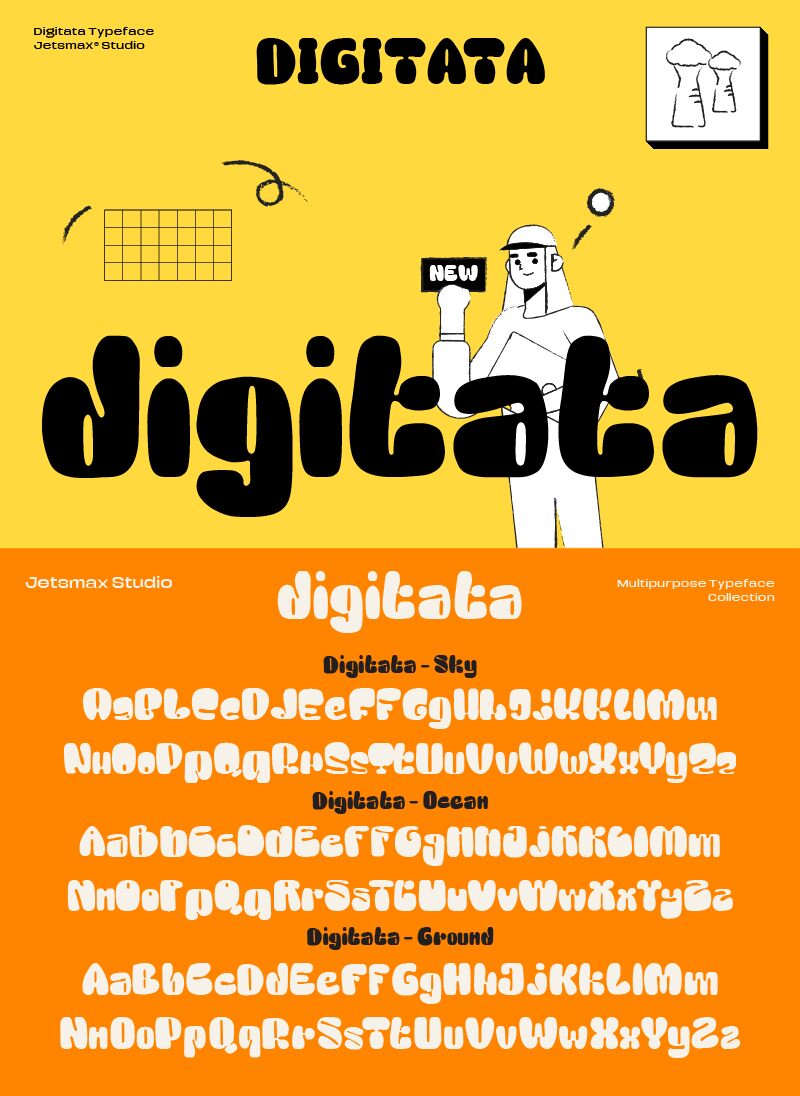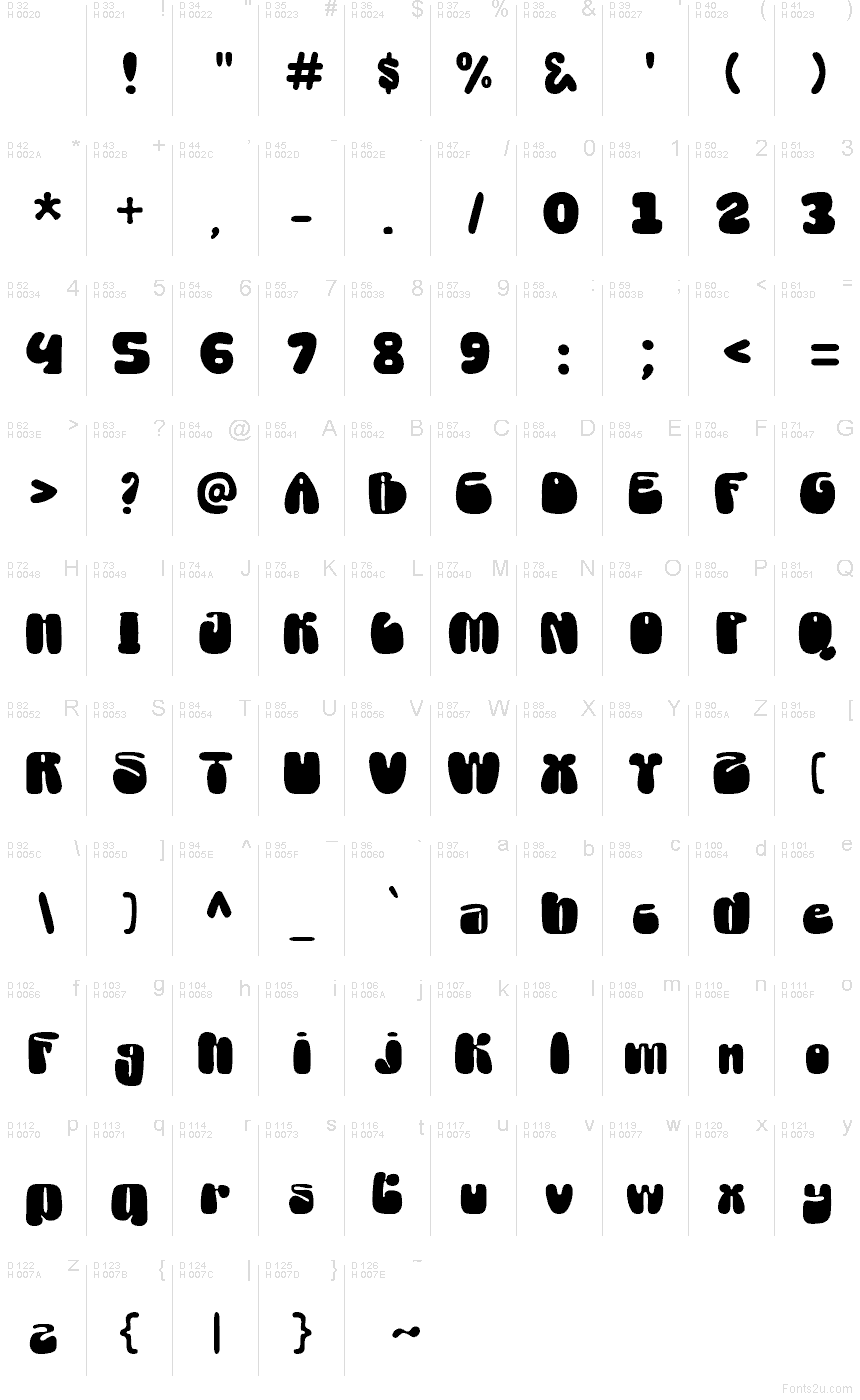
Digitata Ocean
Digitata Ocean font splashes onto the page with chunky, blobby letterforms that feel like wet ink stamped on a surfboard. Its soft, pillowy curves and playful rhythm keep things bold without turning sharp or shouty, so headlines stay friendly and readable even at small poster distances. Digitata Ocean is a free cartoon font, and the matching typeface look gives your words a fun, homemade bounce.
Using Digitata Ocean works beautifully for kids’ packaging, summer event flyers, sticker designs, playful app screens, YouTube thumbnails, candy or soda labels, and comic-style titles. Set it a bit larger with generous tracking, then pair it with a clean sans for body text to keep the chaos charming, not cluttered.